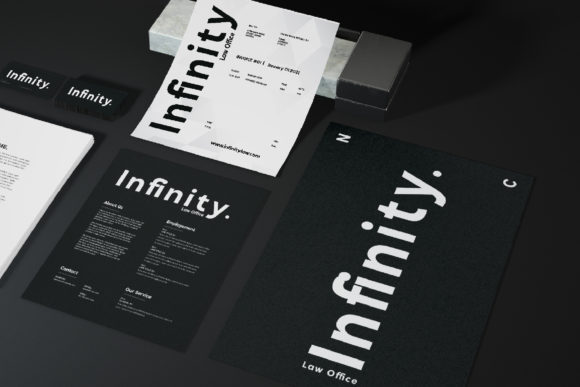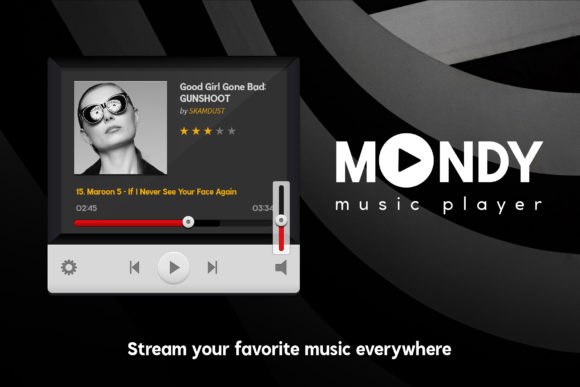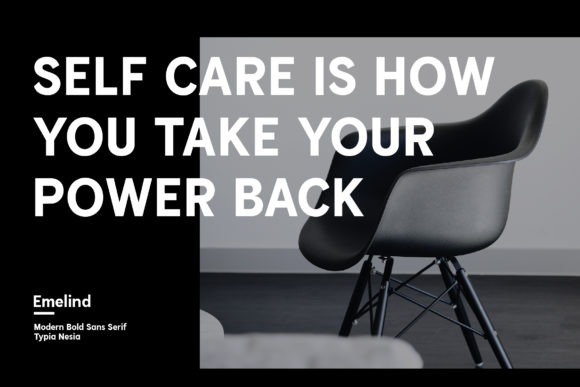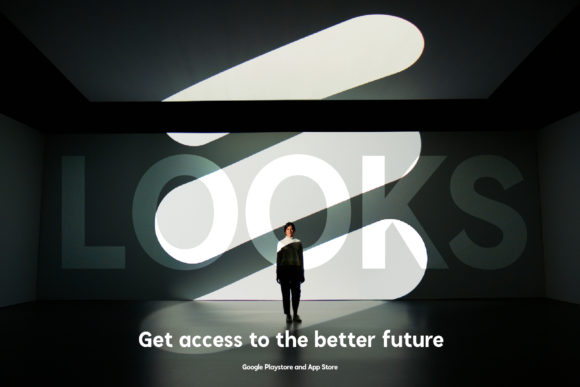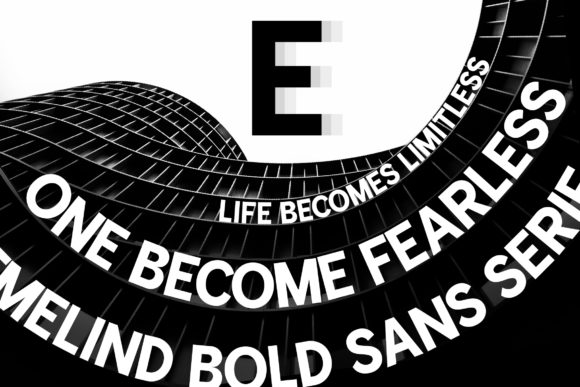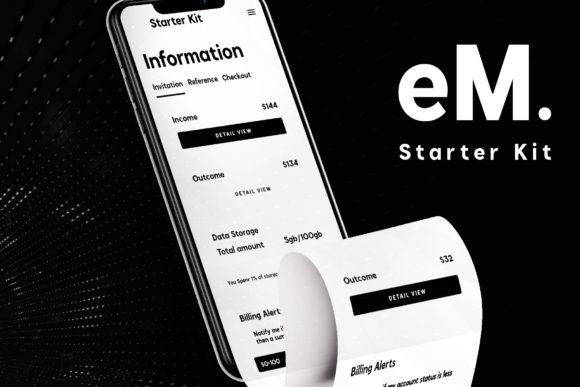
The Designer’s Delight: Emelind Font
I still remember the frustration of working on a project, hours poured into every detail, and then getting stuck on the font. It was for a branding project, and I needed something bold, neat, and versatile. The client was specific about wanting a sans serif font that would make their business stand out. I scoured through font libraries, but nothing seemed quite right. That was until I stumbled upon Emelind Font. It was love at first sight! 💡
Emelind Font: A Bold and Neat Sans Serif
Emelind is a bold and neat sans serif font designed to make your creative projects pop. Its clean lines and modern aesthetic make it incredibly versatile, suitable for a wide range of applications. Whether you’re working on branding, advertising, packaging, or digital media, Emelind can easily be matched to an incredibly large set of projects.
What I Love About Emelind Font
- ✨ Versatility: Emelind’s clean and modern design makes it perfect for various projects, from logos and branding to digital media and print.
- ✅ Readability: The font is highly legible, even at smaller sizes, making it ideal for body text and headlines.
- 💡 Innovative Style: Emelind’s unique aesthetic sets it apart from more traditional sans serif fonts, adding a touch of sophistication to any project.
While Emelind Font is exceptional, there are a few minor considerations:
- 🤔 Limited Script Options: Emelind primarily focuses on sans serif styles, which might limit its use for projects requiring elaborate script fonts.
- ⚠️ Glyph Variety: While it offers a good range of glyphs, some users might find the selection a bit limited for highly specialized projects.
One of the strengths of Emelind Font is its support for OpenType features. These features allow for advanced typographic control, including:
- Ligatures: Combine letters for a more harmonious look.
- Stylistic Alternates: Switch between different font styles for varied aesthetics.
- Glyphs: Access additional characters and symbols to enhance your text.
By exploring these features in compatible software like Adobe Photoshop and Illustrator, you can unlock the full creative potential of Emelind Font.
The Story Behind Emelind Font
Emelind Font was designed with the goal of creating a modern, versatile typeface that meets the needs of contemporary designers. Inspired by the geometric clarity of urban landscapes and the sleek lines of digital interfaces, Emelind strikes a balance between formality and approachability. The designer aimed to craft a font that not only looks great but also enhances readability and creativity.
Q: What type of projects is Emelind Font best suited for?
A: Emelind Font is highly versatile and can be used for a wide range of projects, including branding, logos, digital media, advertising, and print materials.
Q: Is Emelind Font suitable for body text?
A: Yes, Emelind Font is highly legible and can be used for body text, especially in digital media and print.
Q: Does Emelind Font support OpenType features?
A: Yes, Emelind Font supports OpenType features, including ligatures, stylistic alternates, and glyphs, allowing for advanced typographic control.